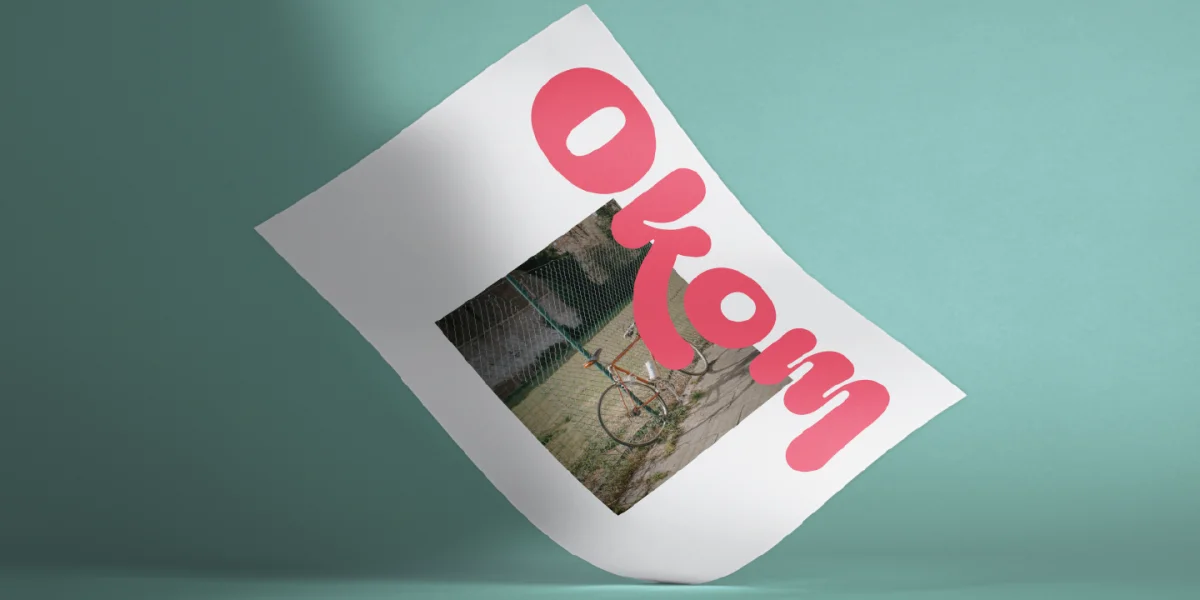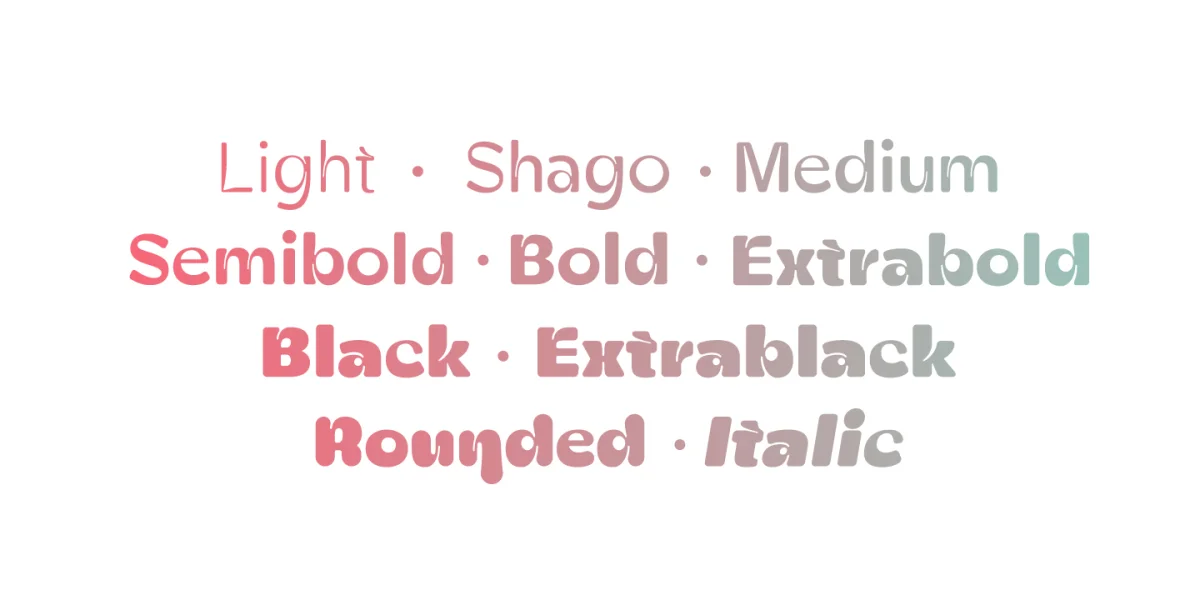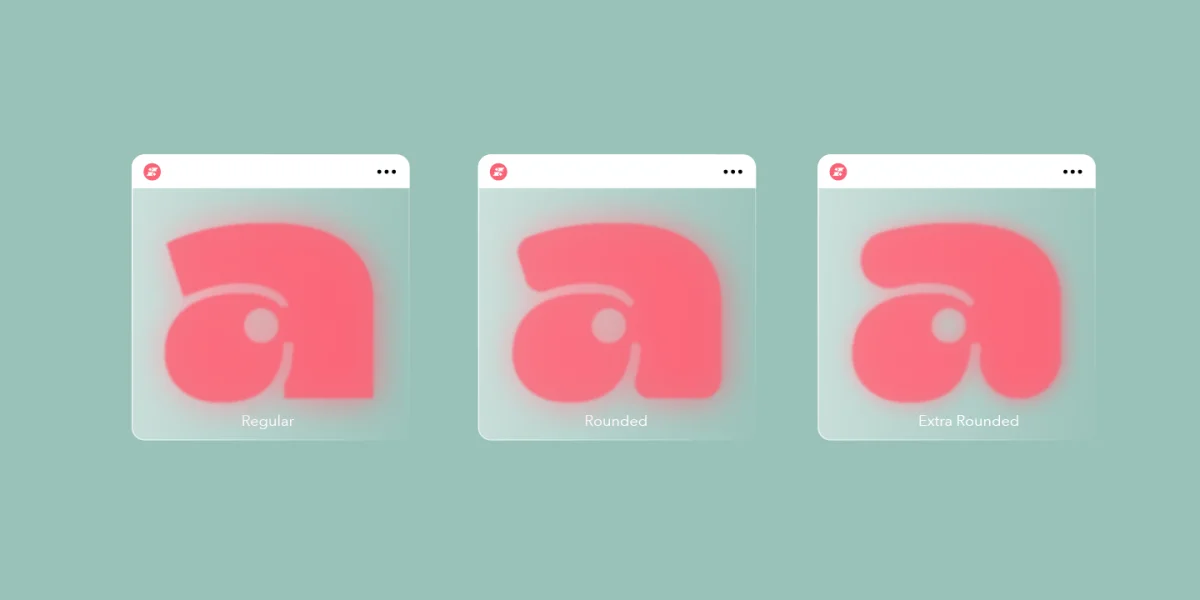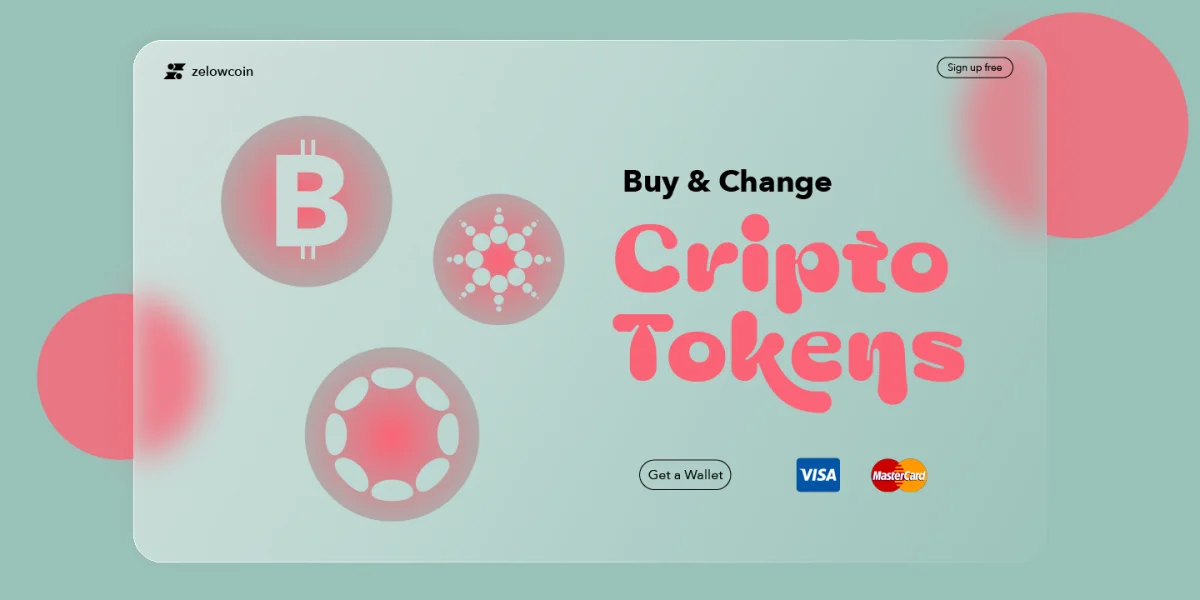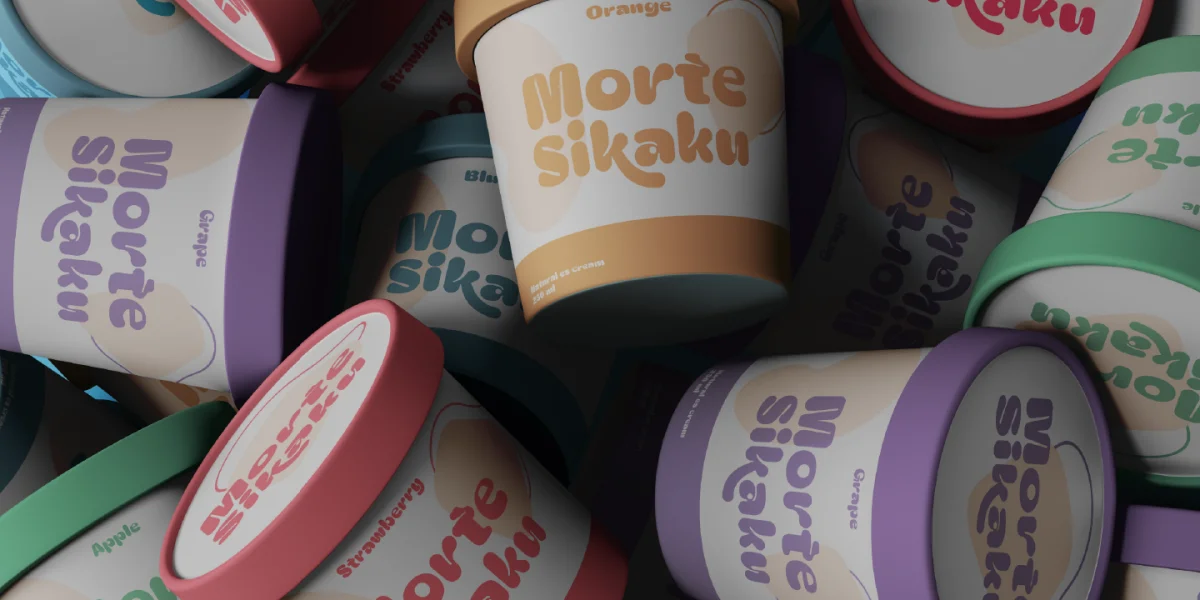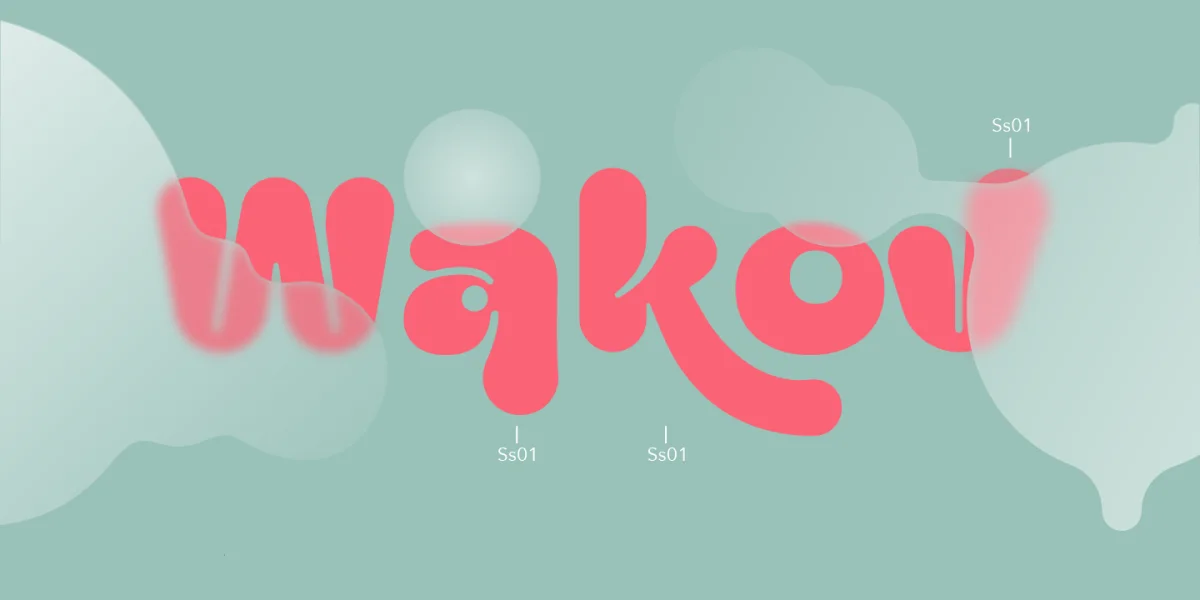
Zt Shago Font Family
Zt Shago is a font family of 3 eye-catching display forms, each style has its own character, from very strong and soft angles.When you're looking for fonts with fun messages, you can find them in the zt Shago family.
Zt Shago is the most extensive font family I've ever created, with 33 styles and 16 free font styles. The default and round styles come in regular & Italic.
While extra rounded only has one weight, namely extra bold. Extra Rounded also has several unique alternatives, namely the letters a, h, k, m, n, v, w, & z, thus enhancing your design style.